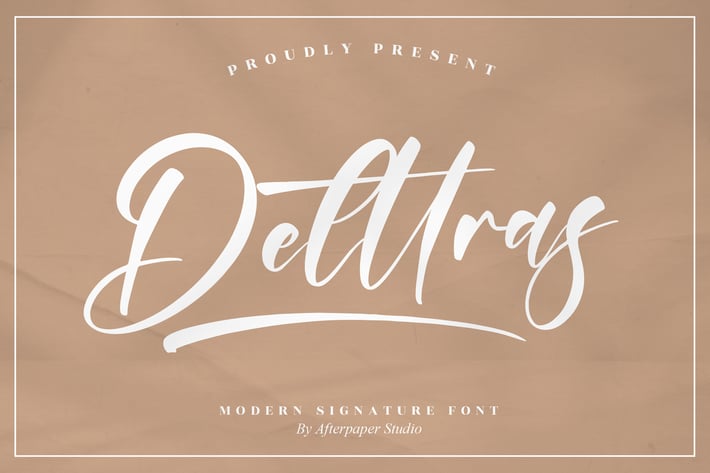
Delttras Modern Signature Font
Deltras is a modern signature font designed with smooth, confident strokes that feel personal yet polished. Its flowing handwritten style delivers a clean, contemporary elegance—perfect for designs that want to feel authentic, stylish, and effortlessly premium.
Modern signature script with smooth flowing strokes
Clean and balanced letterforms for a natural handwritten feel
High readability for both digital and print use
Stylish ligatures and refined curves
Where modern simplicity meets handwritten elegance — a signature font made to feel personal and timeless.*